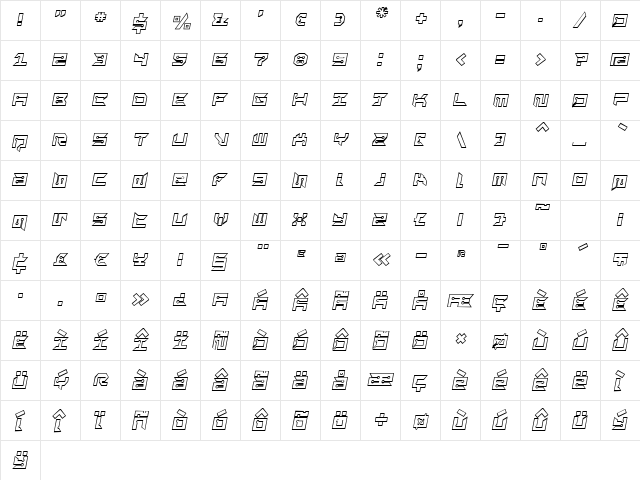
RayzorSharp Outline Italic Regular
Design Context for RayzorSharp Outline Italic Typeface
RayzorSharp Outline Italic brings ornamental detail and strong personality to headlines and identities, where visual impact matters more than quiet functionality. Its italic angle brings a sense of urgency and motion to the letterforms.
Font Pairing: Pair with a clean neutral sans-serif for body copy to let RayzorSharp Outline Italic's character lead without overwhelming the composition.
Pro Tip: Use RayzorSharp Outline Italic exclusively at display sizes — it was designed to be seen, not read at length. Let a neutral companion handle body copy.